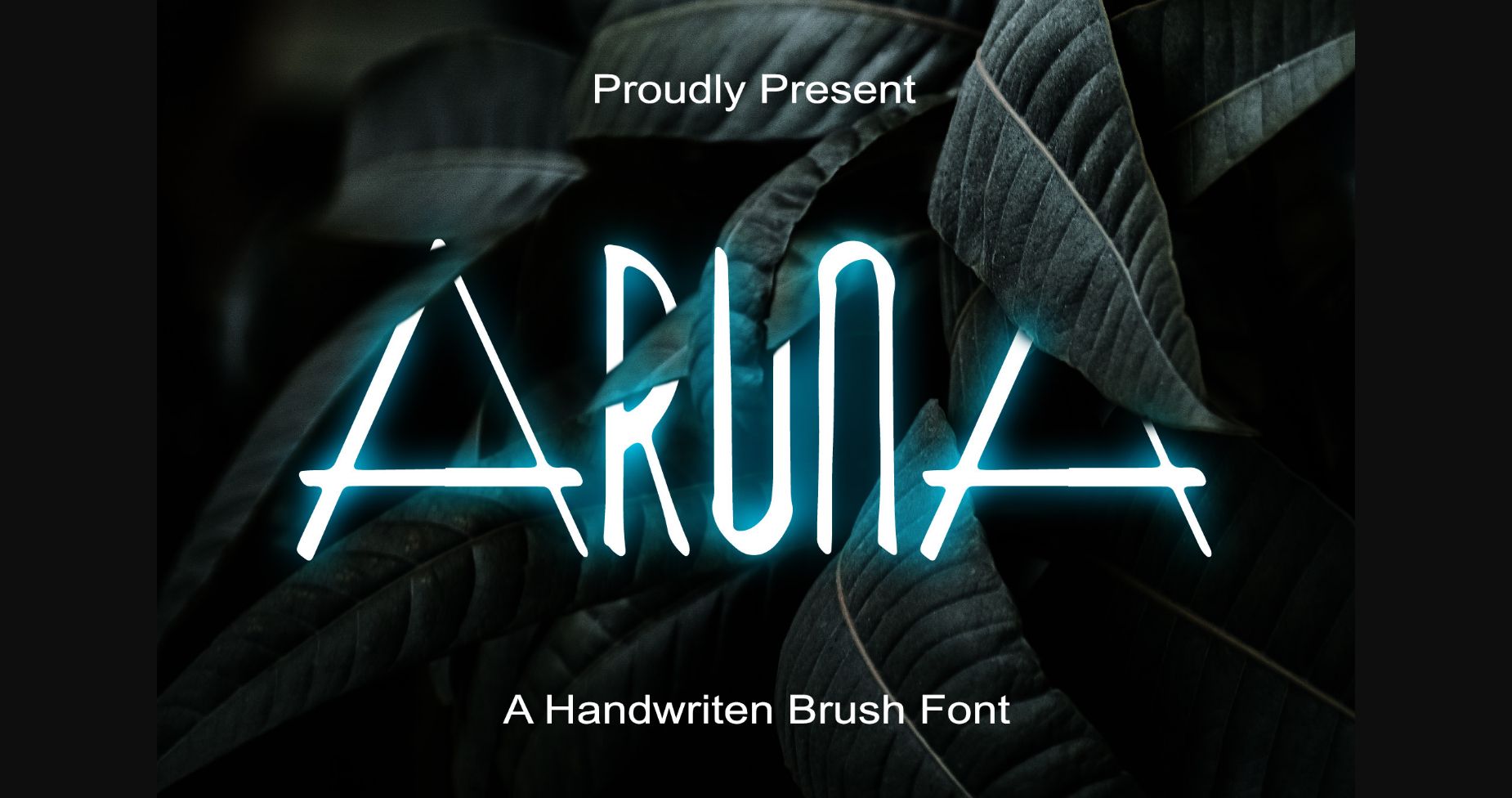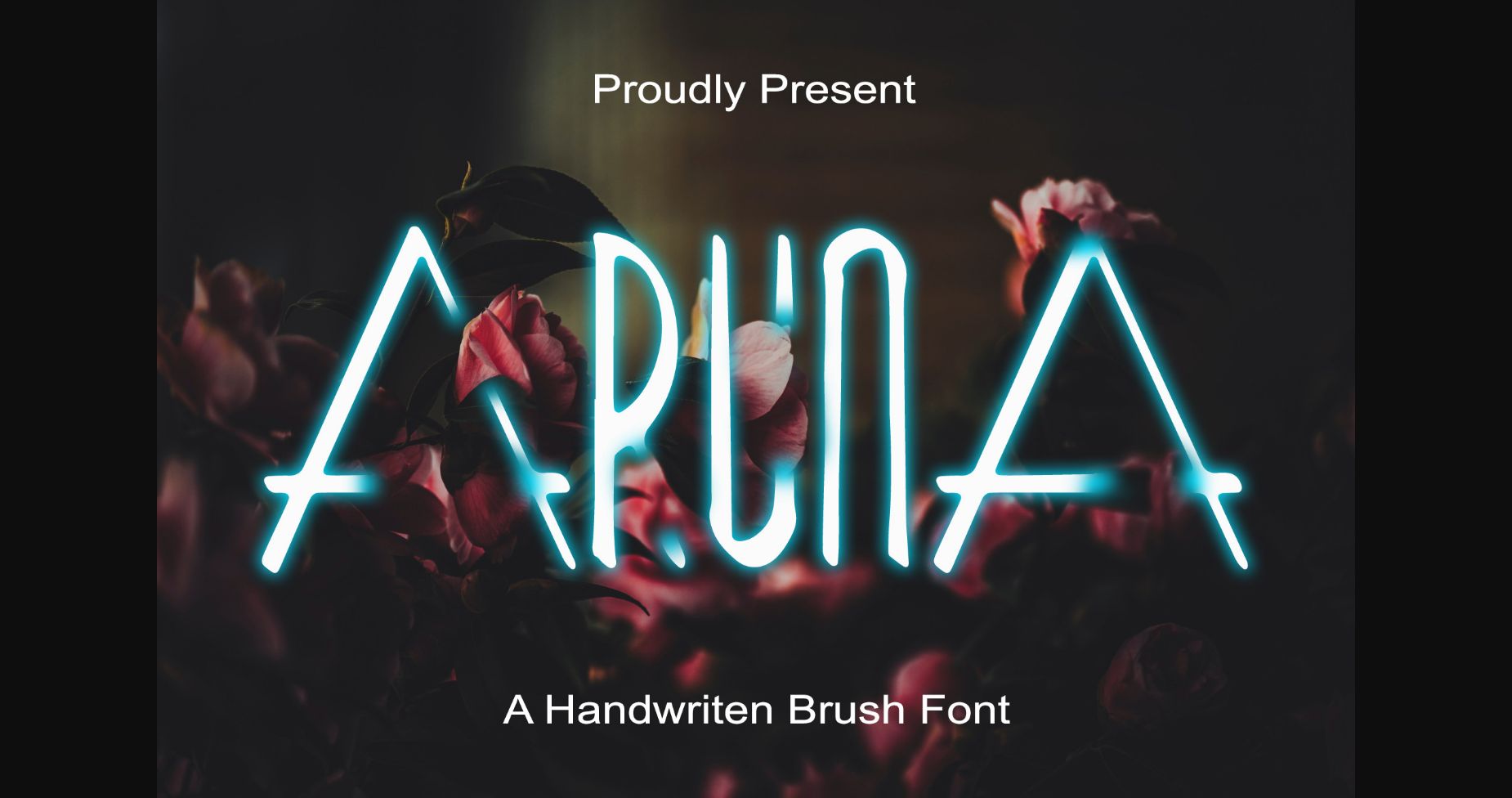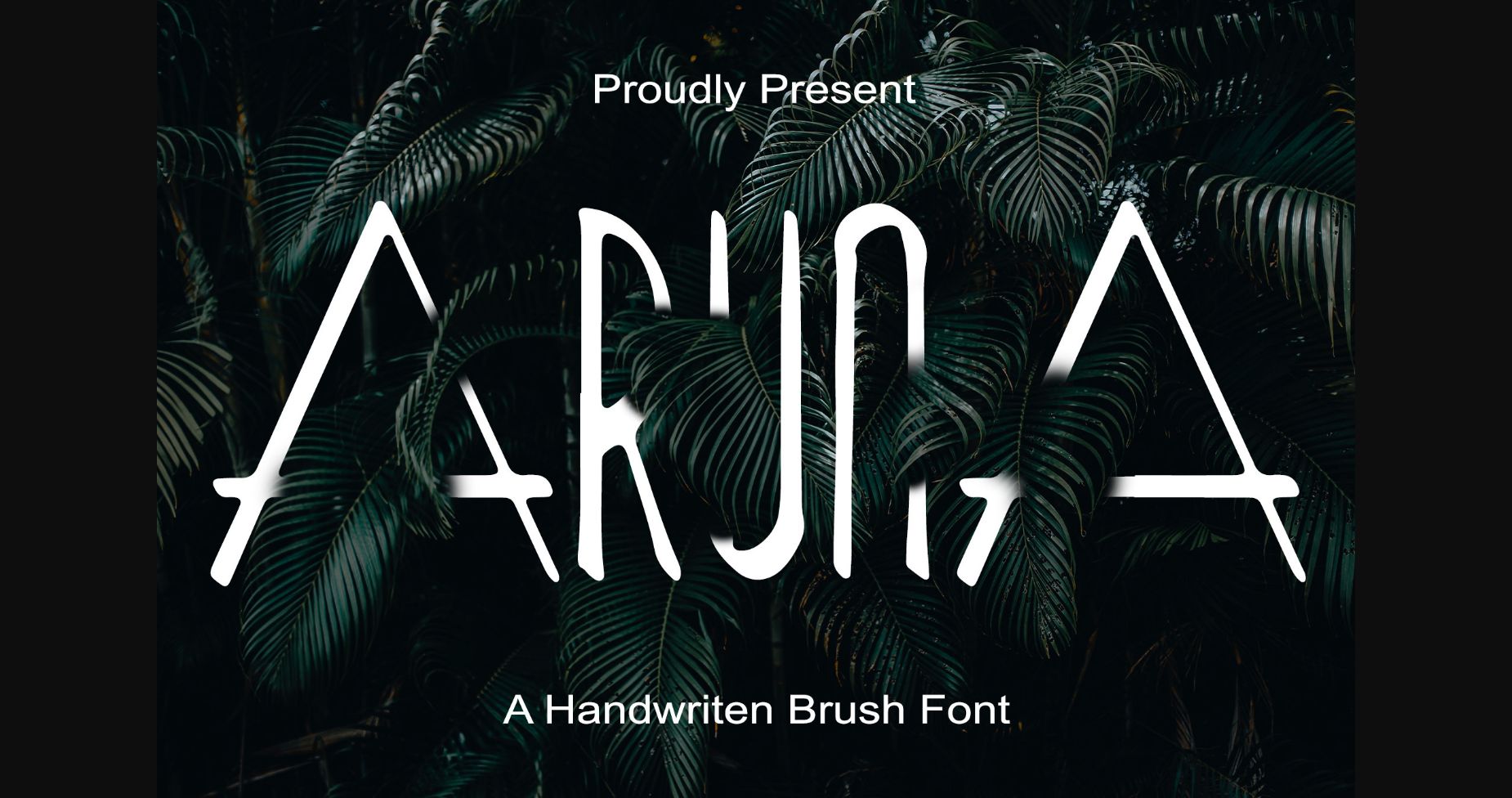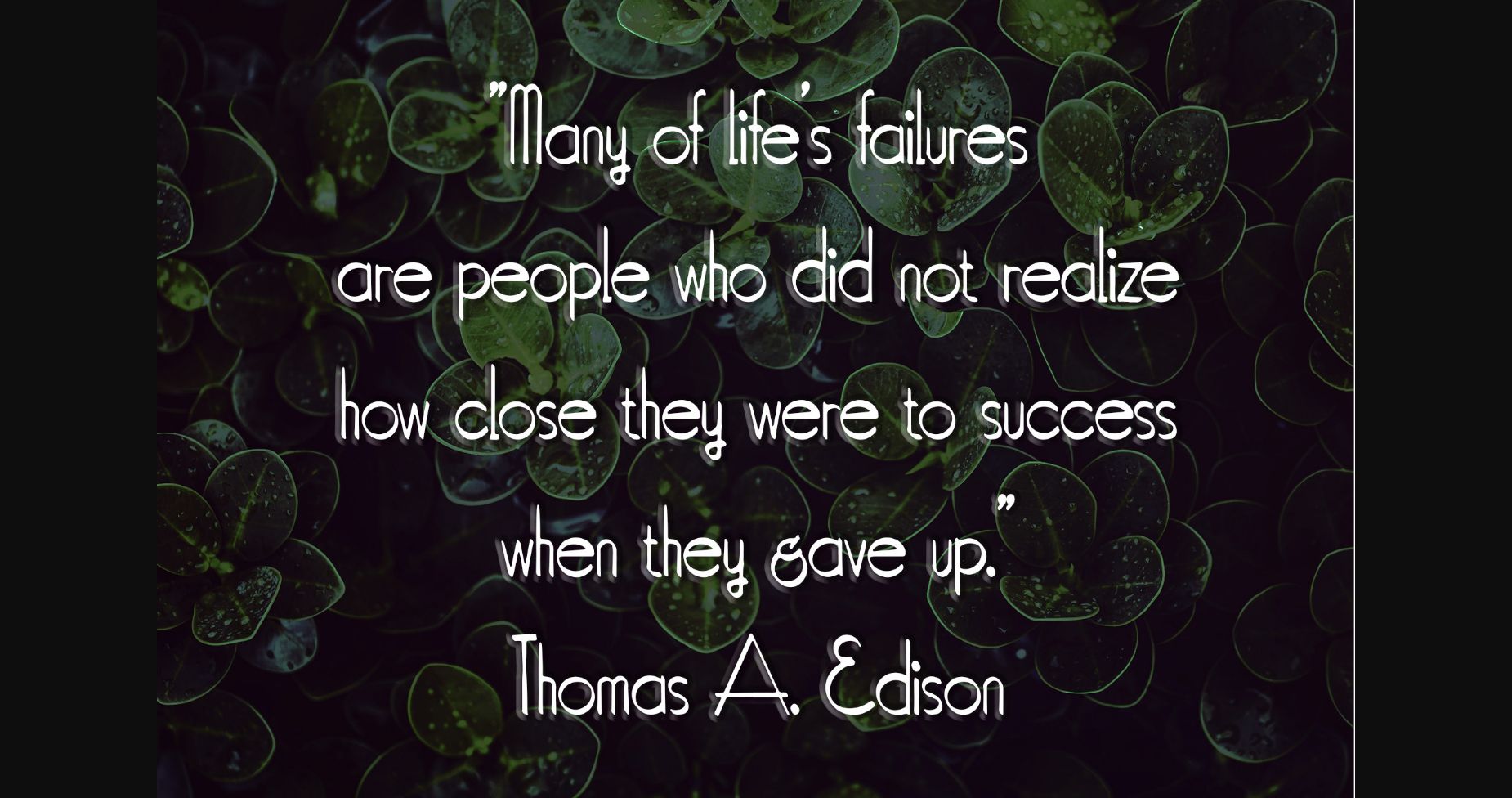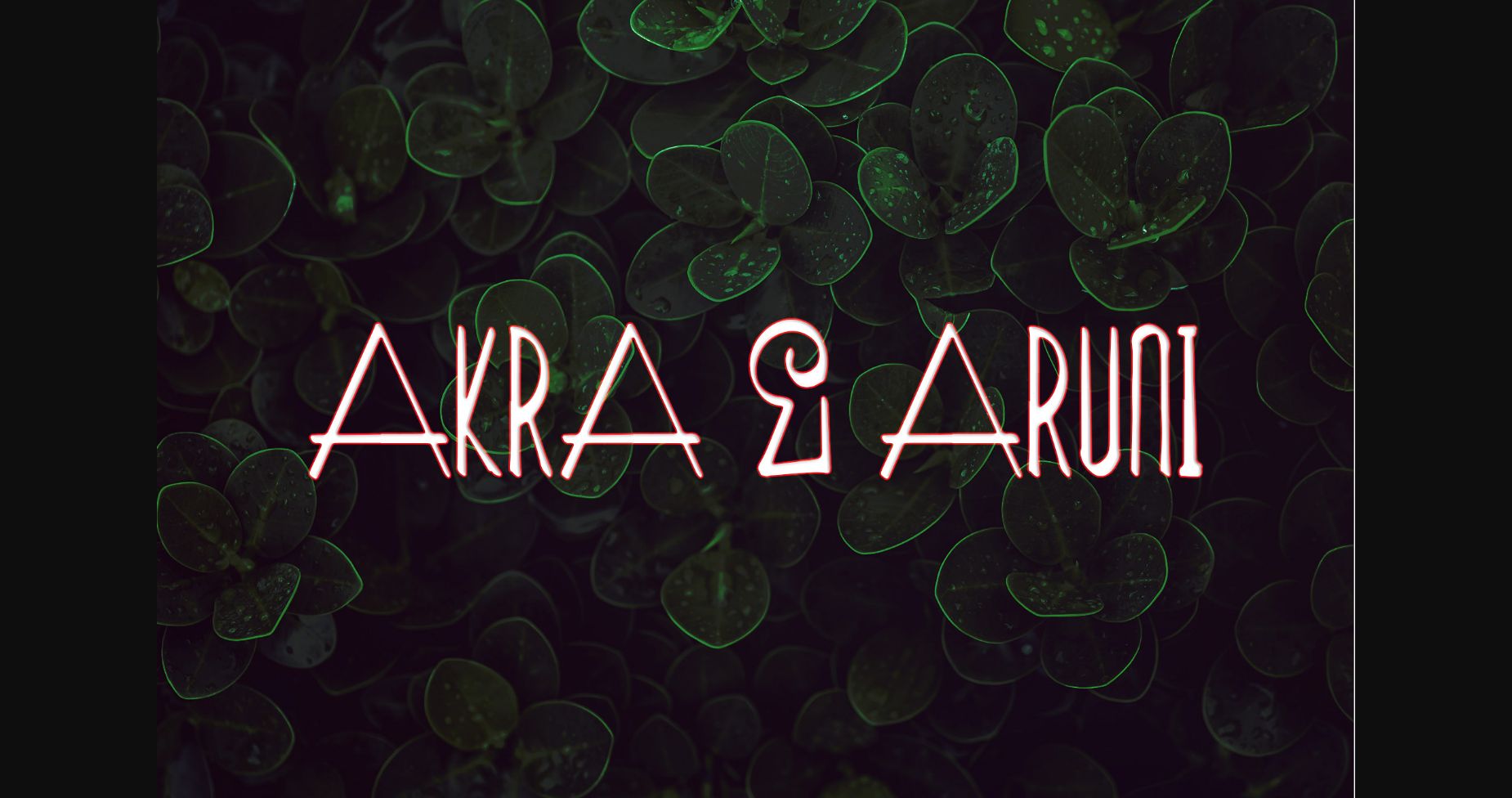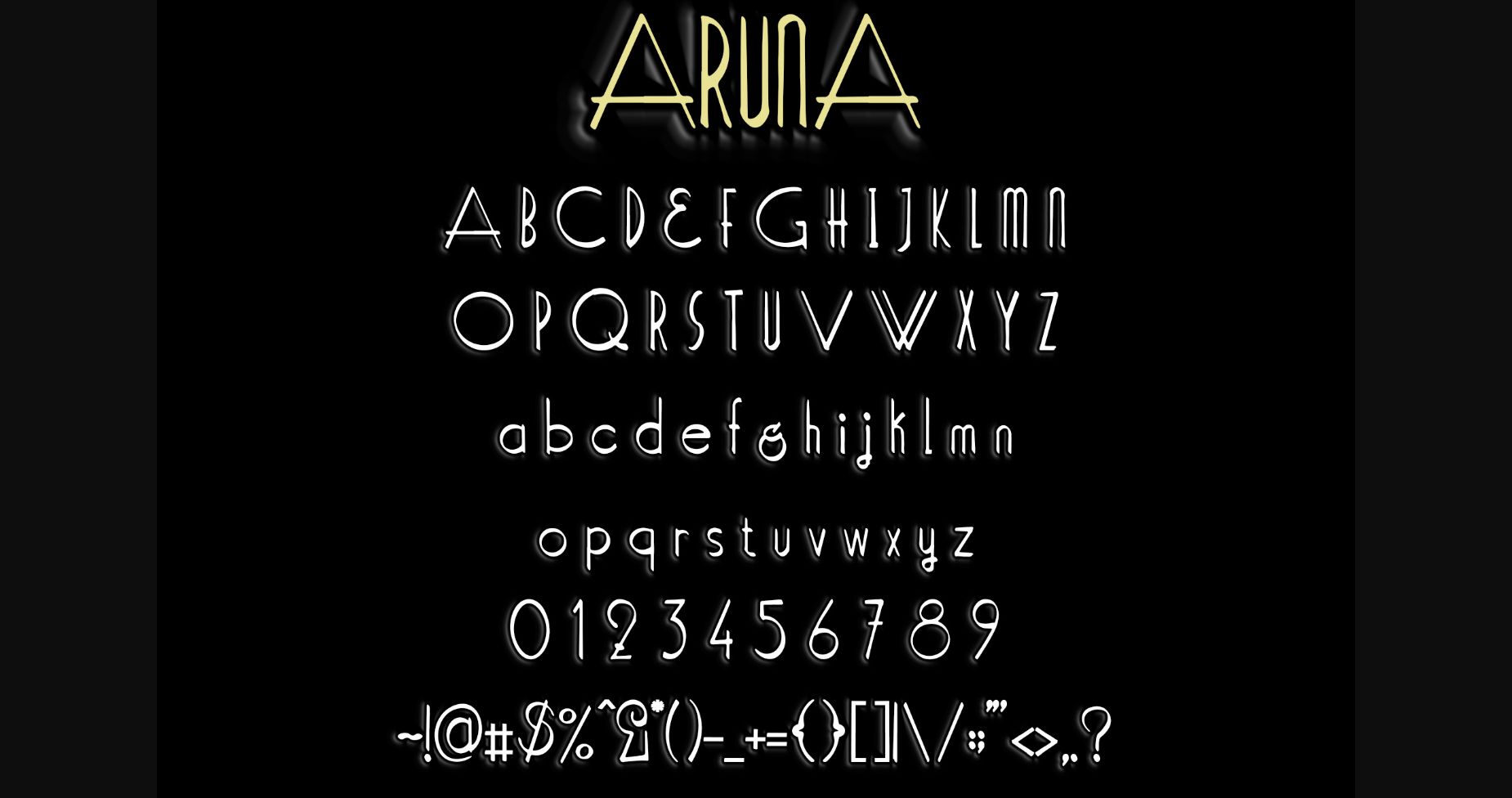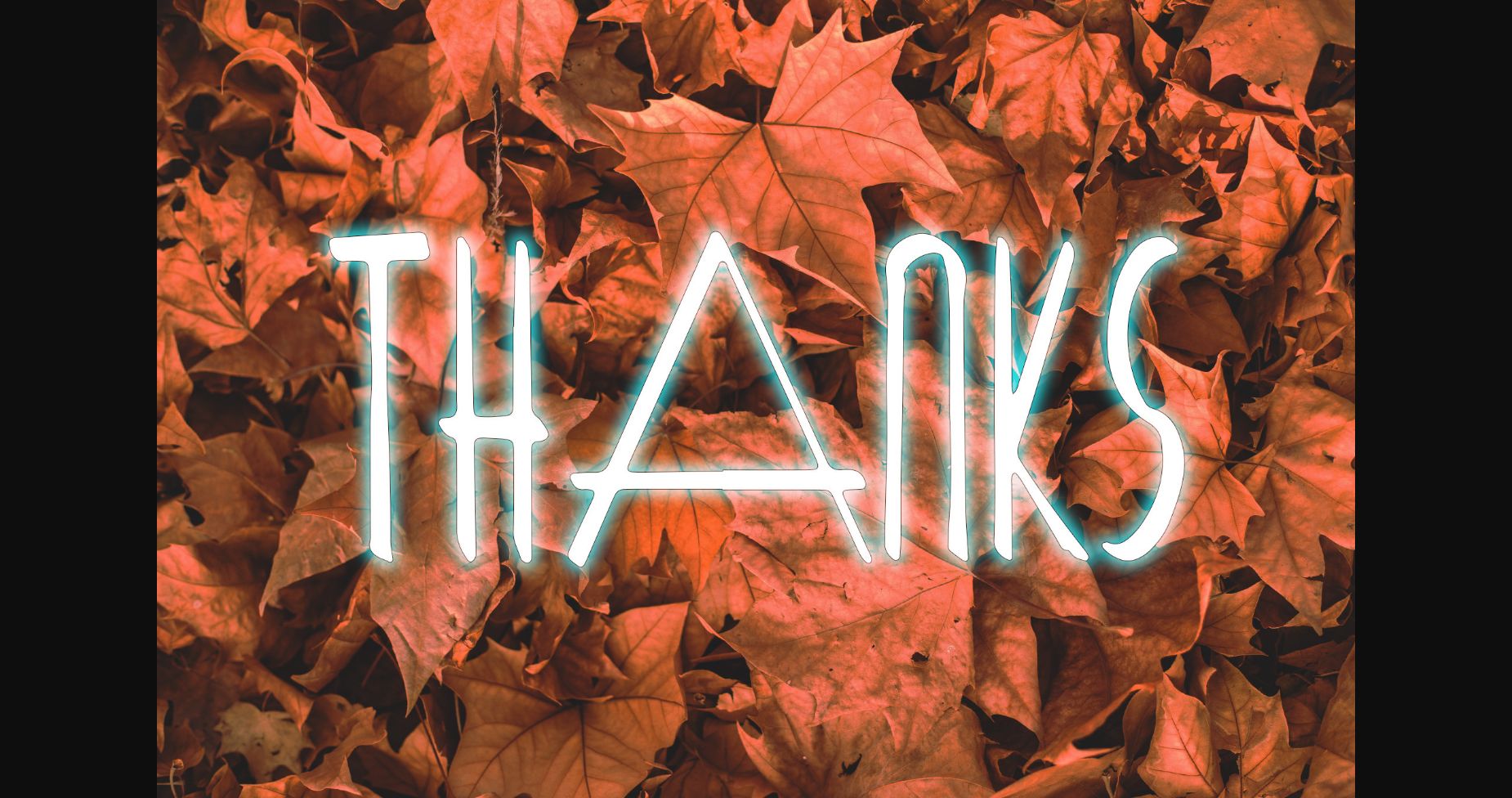
Aruna is a clean and neat sans serif font. It will look stunning on any food menu, poster, flyer or print. Use this font for your designs and explore its endless possibilities.